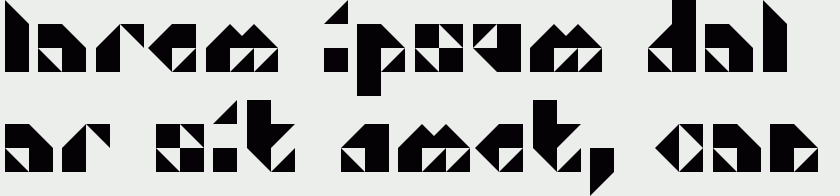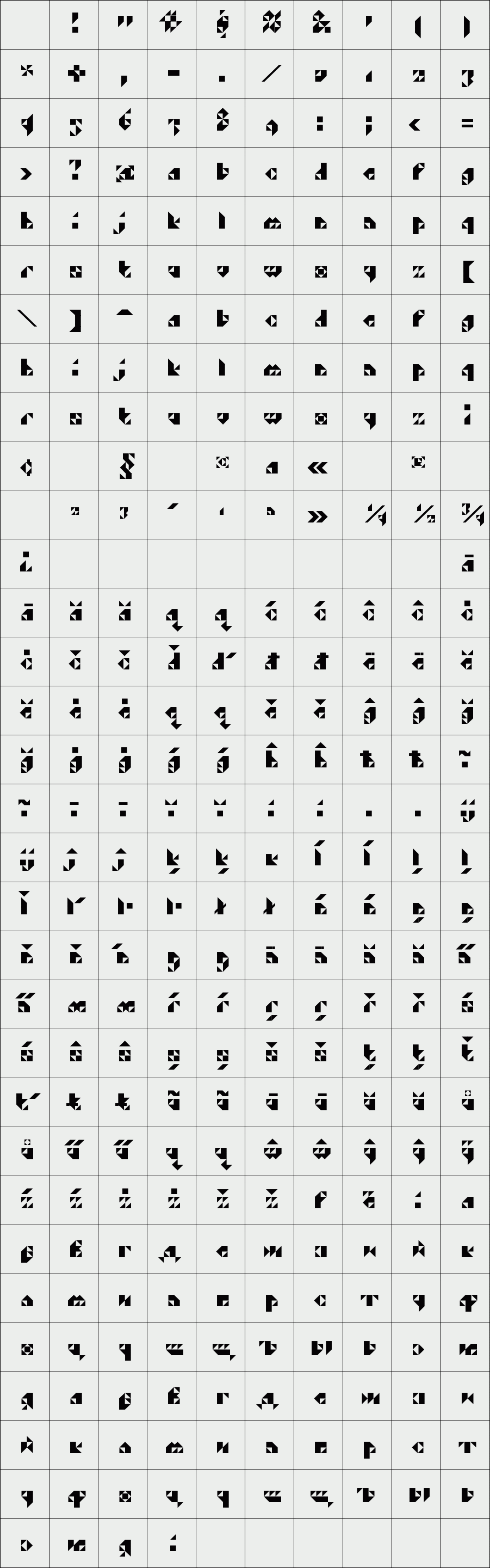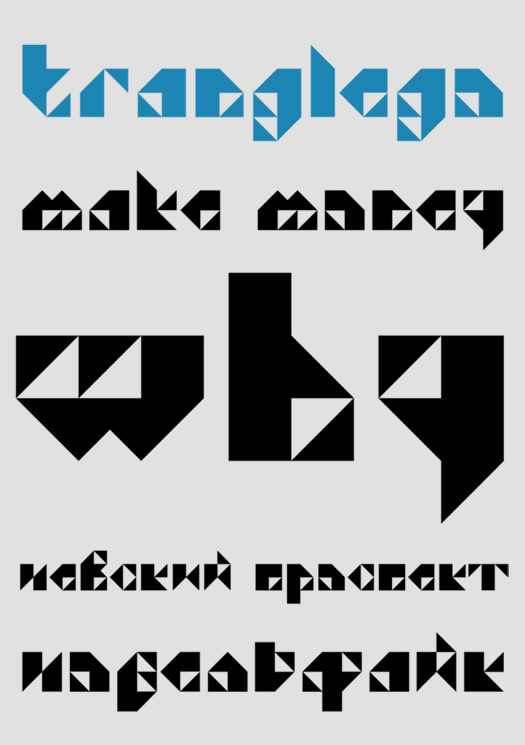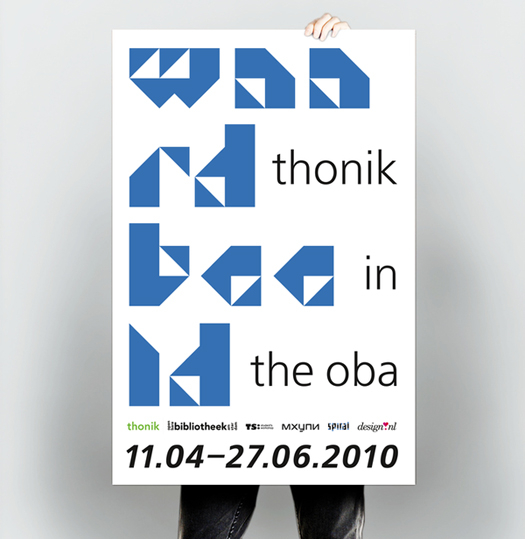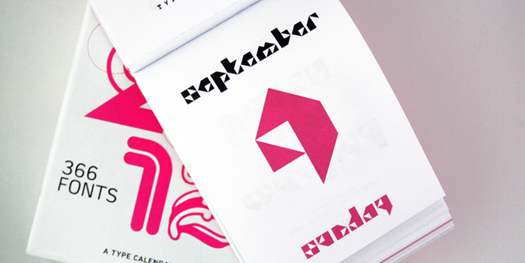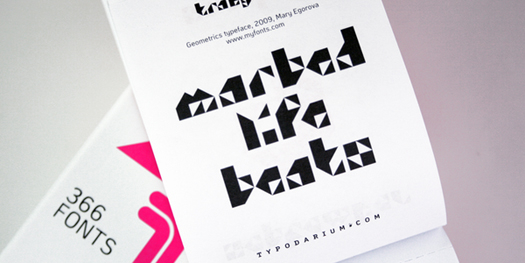
Tranglego
Tranglego is triangle module font made in Tagir Safayev workshop in Higher Academic School of Graphic Design, Moscow, 2009. Typeface was designed for usage in advertising and headlines.
Designer: Mary Egorova